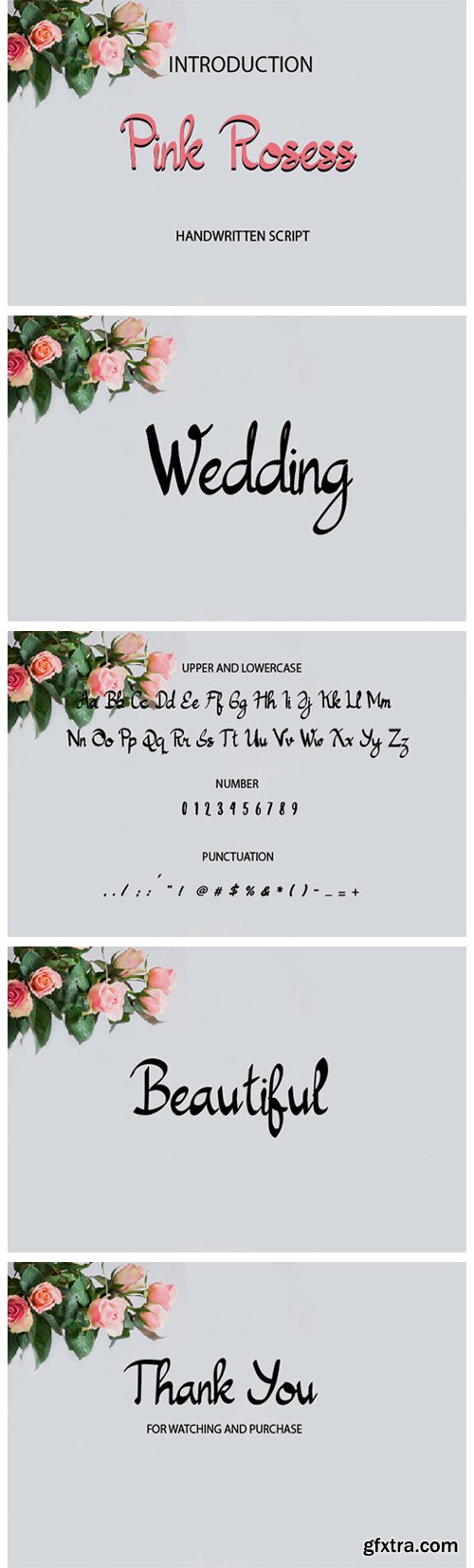
Pink Rosess Font
Pink Rosess is a romantic and modern calligraphy typeface. It has various of alternates that will make your designs standout. Fall in love with its authentic feel and use it to create gorgeous wedding invitations, beautiful stationary art, eye-catching social media posts, and cute greeting cards.